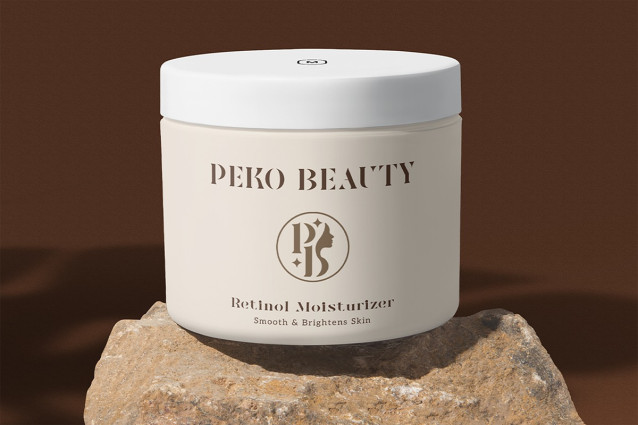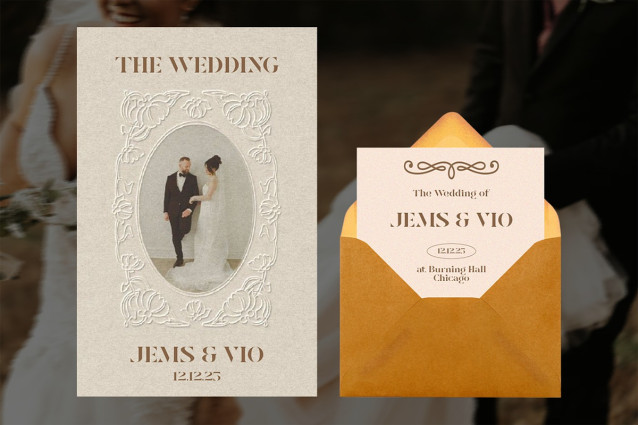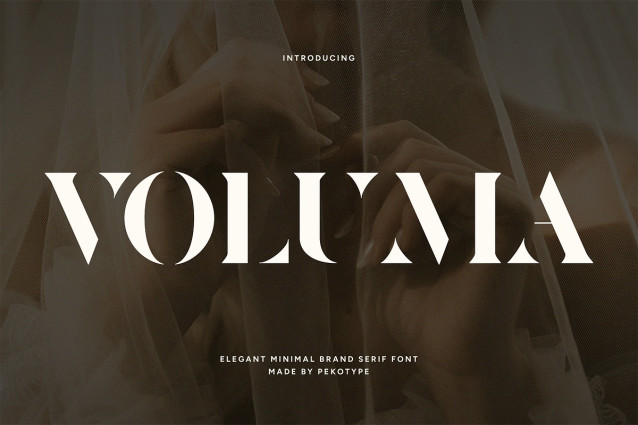
Voluma Font
Voluma Font a minimalist and elegant display font crafted for designers who appreciate refined aesthetics and timeless sophistication. VOLUMA blends modern geometric forms with graceful high-contrast strokes, creating a typeface that is bold, stylish, and effortlessly luxurious.
With a complete set of uppercase and lowercase letters, VOLUMA is perfect for elevating brand identities, high-end logos, fashion editorials, product packaging, wedding invitations, marketing materials, and premium social media content. Its clean structure and sculpted details give every word a sense of artistry and exclusivity.
VOLUMA also features multilingual support, making it versatile for global branding projects. Designed to stand out while maintaining minimal elegance, this display typeface brings a polished and contemporary voice to any visual composition.